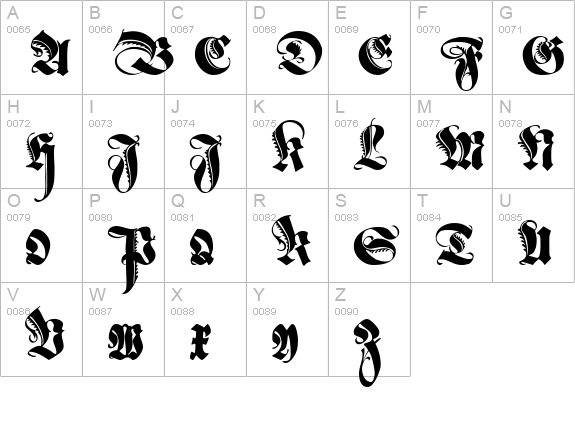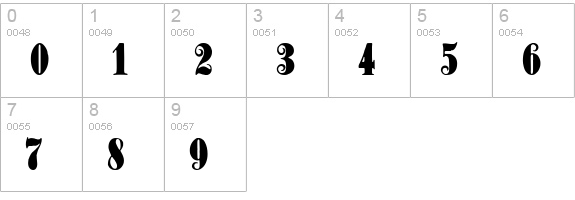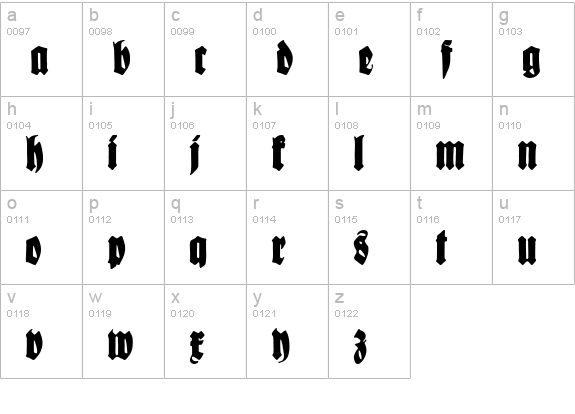
Schmale Anzeigenschrift Zier Font Details
Introducing Schmale Anzeigenschrift Zier font, a stunningly elegant typeface that exudes sophistication and timeless beauty. This font is the epitome of grace and refinement, perfect for adding a touch of class to any design project. Schmale Anzeigenschrift Zier font features intricate and delicate letterforms that are meticulously crafted to create a sense of luxury and exclusivity. Each character is adorned with exquisite embellishments, adding a touch of ornate charm to your designs. The narrow and slender strokes of this font give it a sleek and polished appearance, making it ideal for titles, headlines, and elegant branding. One of the most remarkable aspects of Schmale Anzeigenschrift Zier font is that it is freely available to download at FontsMarket.com. This means that you can access this stunning typeface without any cost, making it an incredible resource for designers, artists, and creatives. Whether you're working on a personal project or a commercial venture, this font allows you to elevate your designs without breaking the bank. With its versatility and timeless appeal, Schmale Anzeigenschrift Zier font can be used across a wide range of design applications. From wedding invitations and stationery to high-end fashion branding, this font adds a touch of sophistication and elegance to any project. Its refined and graceful aesthetic will captivate your audience and leave a lasting impression. Don't miss out on the opportunity to enhance your design work with Schmale Anzeigenschrift Zier font. Download it for free at FontsMarket.com and unlock a world of endless possibilities. Elevate your designs with this exquisite typeface and create a visual masterpiece that is sure to stand out from the crowd.